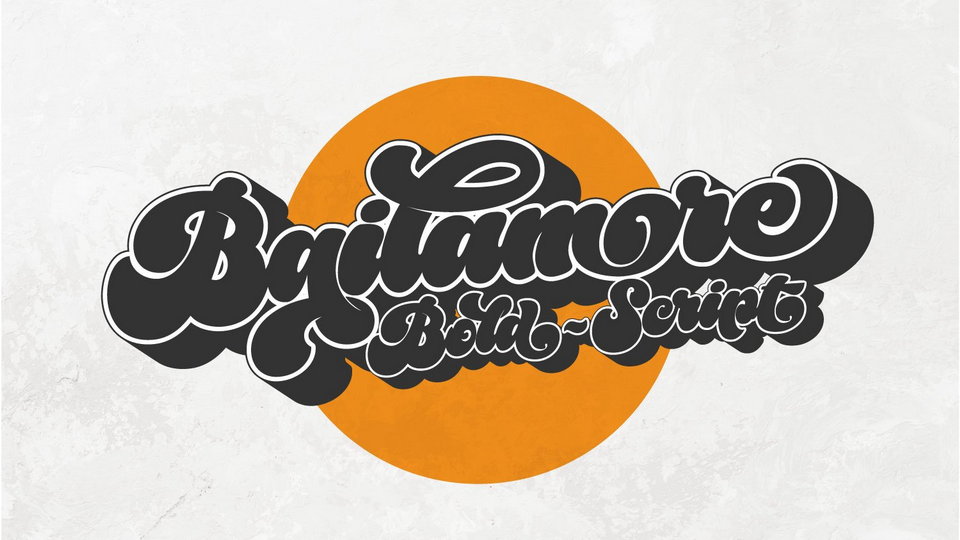
Download Bailamore font, a bold retro style handwritten typeface well integrated with spacing and balance of space. Bailamore is perfect for logo, branding, lettering compositions, vintage posters and more.